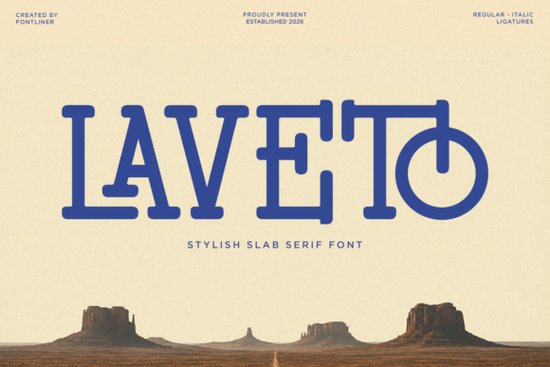
Laveto Font is a retro slab serif typeface built around the look of classic Americana signage, vintage road trips, and old-school packaging. If you've been searching for a bold display font with genuine western character and strong readability, this one deserves a closer look. It features thick slab serifs, distinctive ligatures, and an elegant italic companion all designed to give your headlines that handcrafted, heritage feel.
What design styles does Laveto Font work best with?
Laveto shines in projects that lean into vintage, western, or retro aesthetics. Think about old highway billboards, desert motel signs, whiskey bottle labels, and motorcycle shop logos. That's the visual territory this font lives in.
Here are a few specific styles where it fits naturally:
- Classic Americana branding logos, business cards, and signage for heritage-style businesses
- Vintage packaging design food labels, craft beer bottles, hot sauce packaging
- Western-themed identities rodeo events, ranch branding, country music promotions
- Retro travel and advertising National park posters, road trip merchandise, nostalgic campaigns
- Restaurant and bar branding menus, storefront lettering, cocktail napkins
The included ligatures give each word a slightly custom look, which means your typography won't feel like it came straight out of a template. That small detail makes a real difference in display work.
Is Laveto a good choice for print-on-demand and merchandise?
Absolutely. If you sell on platforms like Redbubble, Etsy, or Merch by Amazon, a font like Laveto can help your designs stand out in crowded marketplaces. Retro and western-style graphics continue to perform well across t-shirts, mugs, tote bags, and wall art.
Bold slab serif fonts are especially effective on merchandise because they:
- Stay readable at both large and small sizes
- Look strong on dark and light backgrounds
- Carry an instant personality buyers recognize the vintage vibe right away
- Pair well with simple illustrations, badges, and banner shapes
If you already use typefaces like a bold sport-inspired slab serif in your designs, Laveto gives you a complementary option with a more western, heritage direction.
Can beginners use Laveto Font easily?
A few practical tips for getting the most out of it:
- Use it for headlines and titles it's a display font, so it's meant to be shown at larger sizes, not in body text
- Try the ligatures most design apps let you enable stylistic alternates and ligatures, which give your text a more polished, hand-lettered appearance
- Pair it with a clean sans-serif for body copy or subtitles, a simple geometric sans-serif balances Laveto's decorative character
- Test the italic style it adds movement and works nicely for taglines, subheadings, or emphasis within a layout
What makes Laveto different from other retro slab serif fonts?
There are plenty of vintage-style slab serifs out there, but Laveto stands out for a few reasons. The letterforms feel balanced they have enough decorative detail to look interesting without becoming hard to read. That's not always easy to find in retro display fonts.
The ligatures and alternate characters also add real versatility. Instead of every letter combination looking mechanical, certain pairs flow together with a more organic, handcrafted quality. This matters when you're working on branding or packaging where every visual detail contributes to the overall feel.
You can check out the full Laveto typeface details for a complete look at what's included.
Quick checklist before you buy
Before picking up Laveto, make sure to:
- Review the full character set check that it includes the glyphs, ligatures, and alternates you need
- Confirm your software supports OpenType features ligatures and stylistic alternates need apps that can access them
- Check the license make sure the commercial use terms match your project, whether it's client work, merchandise, or personal branding
If your next project calls for bold vintage typography with western roots, Laveto is a solid choice that balances retro charm with modern usability. Try pairing it with a simple layout and let the lettering do the heavy lifting.